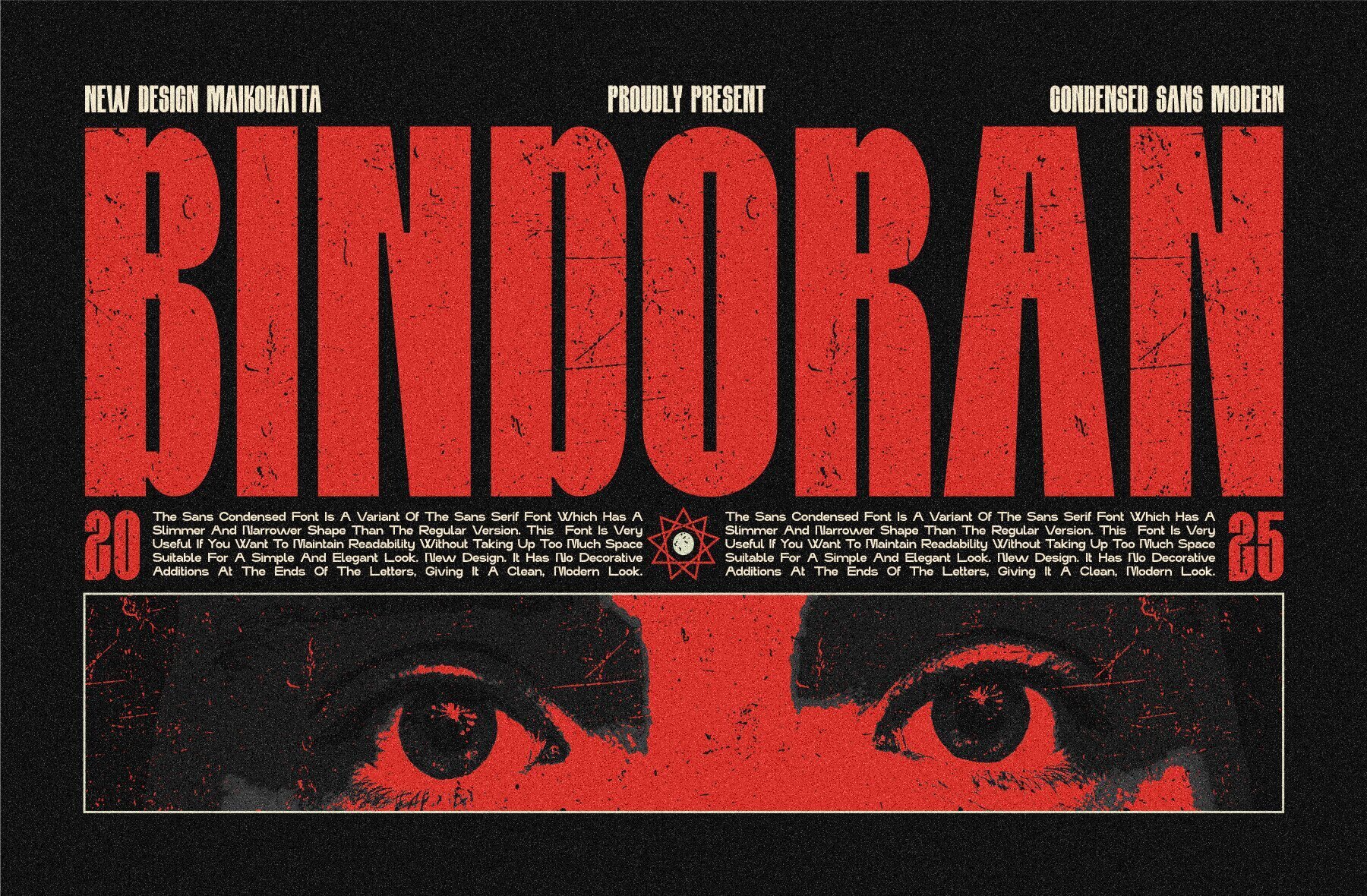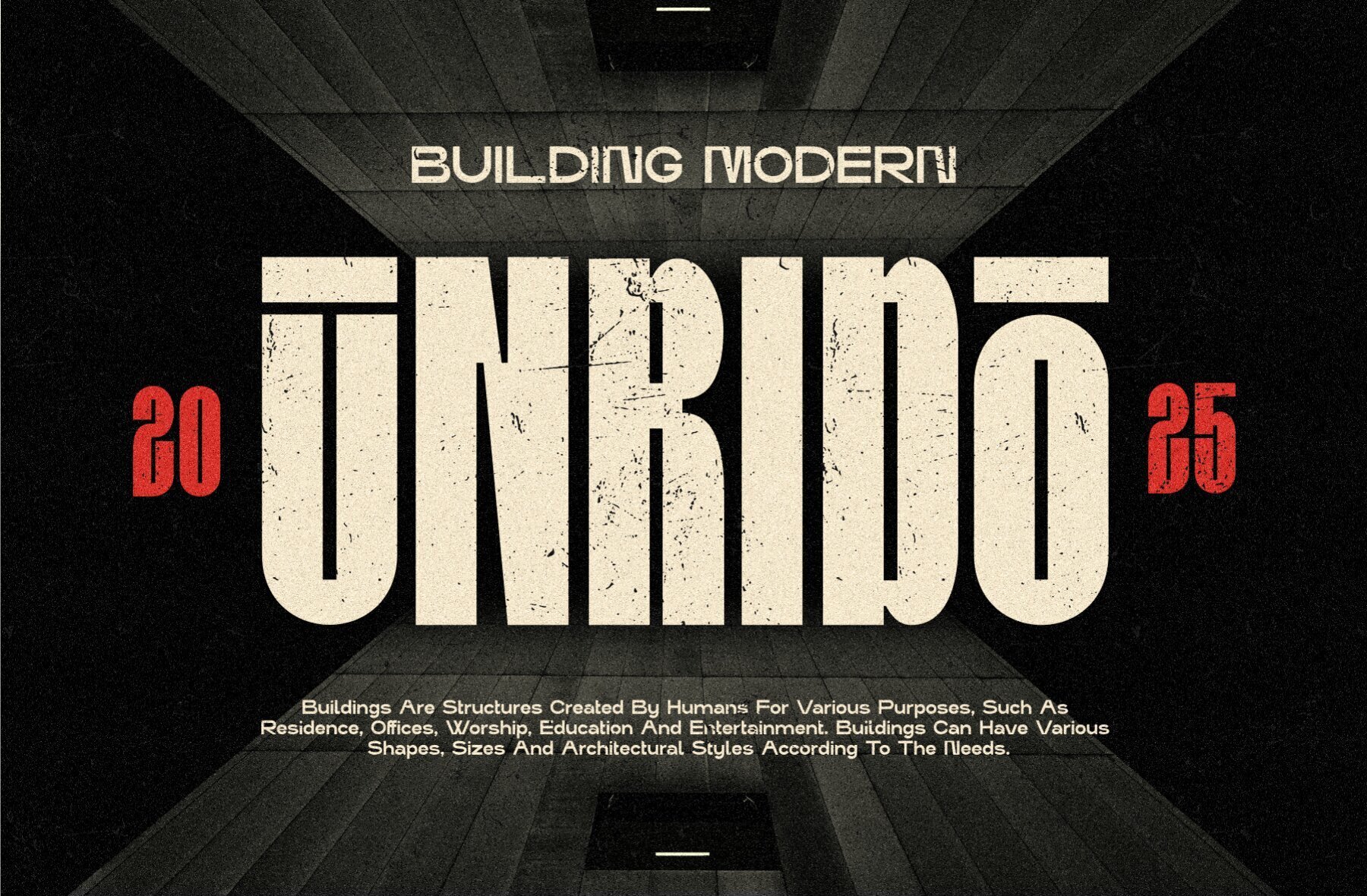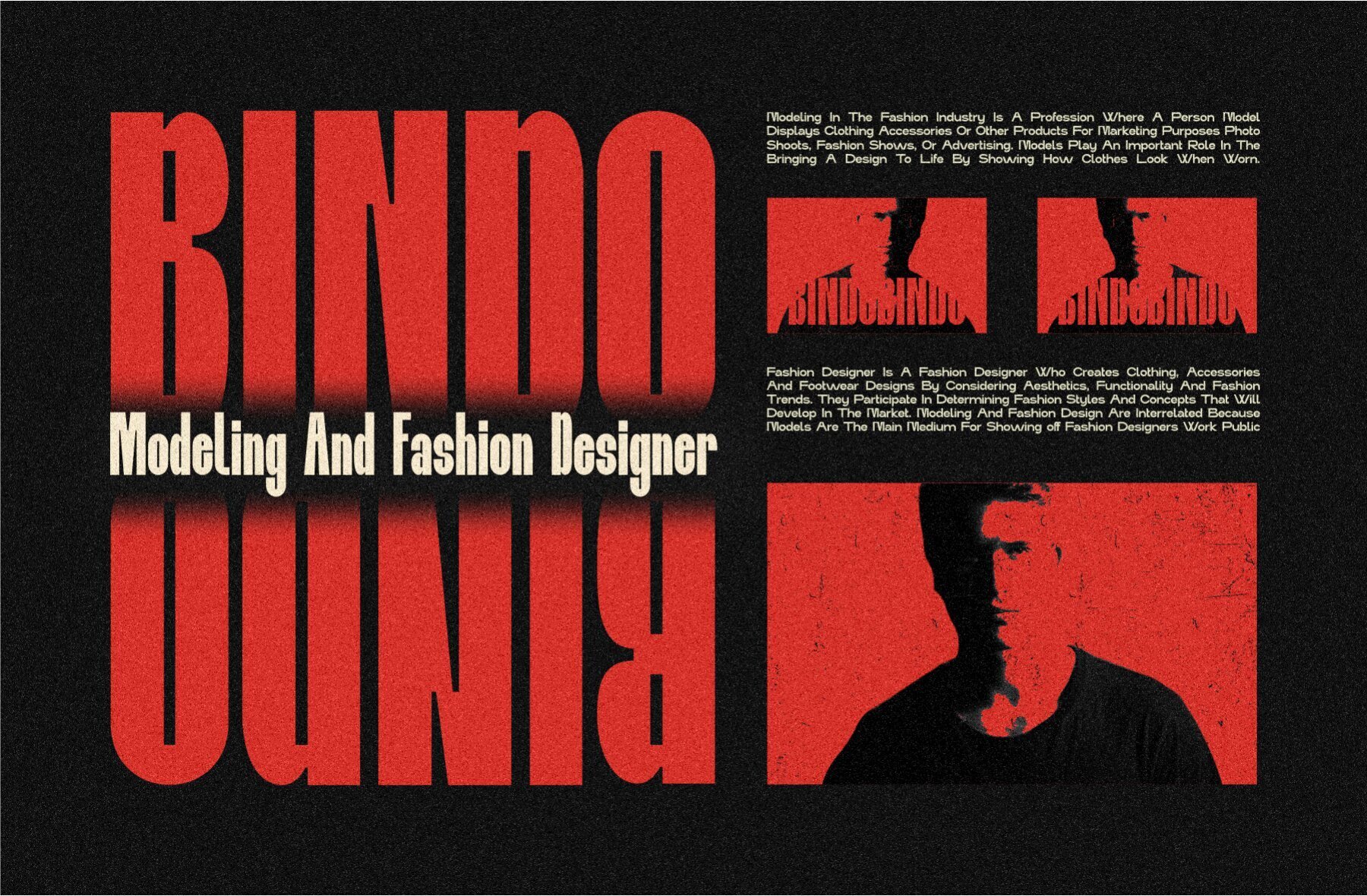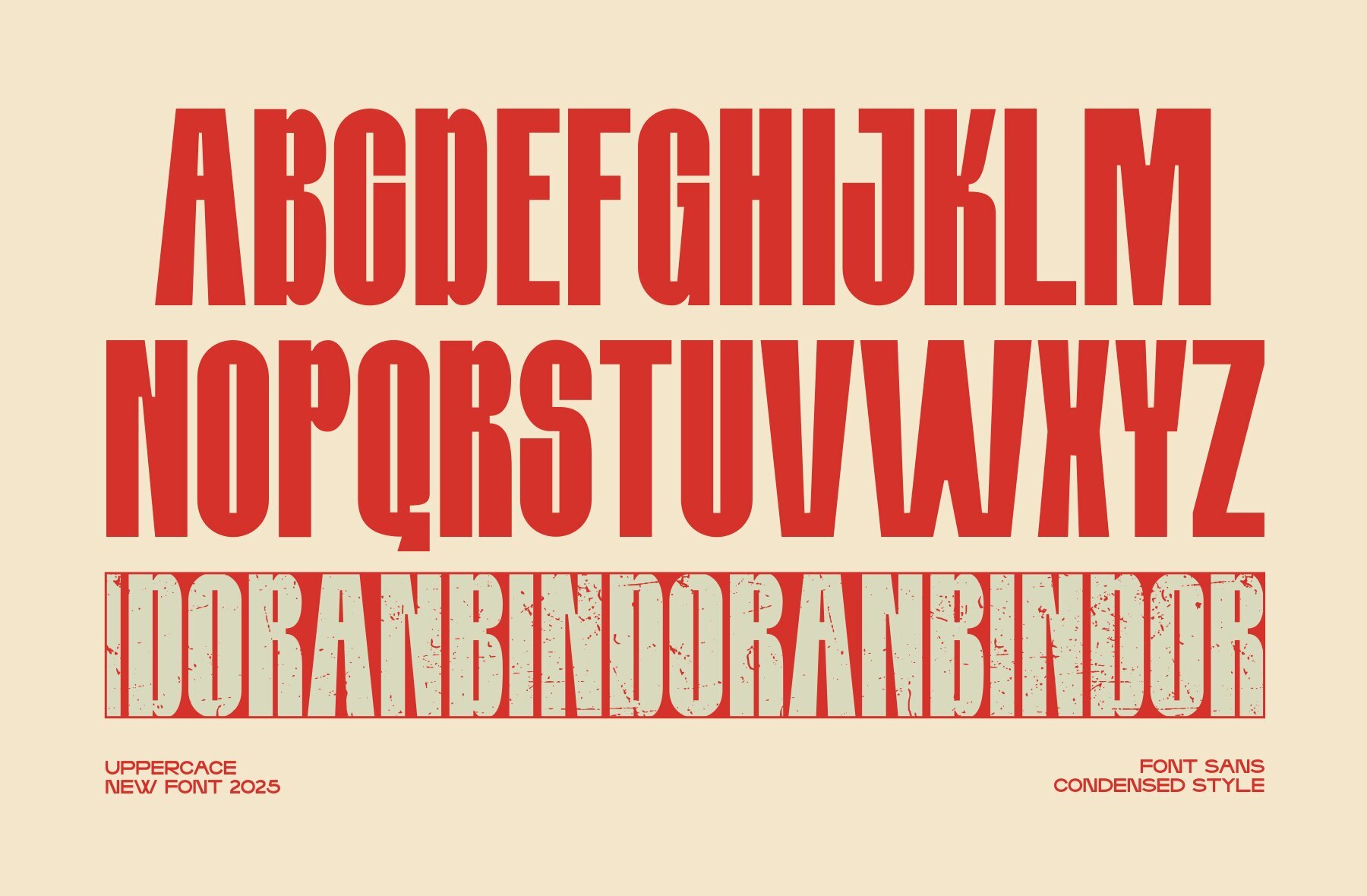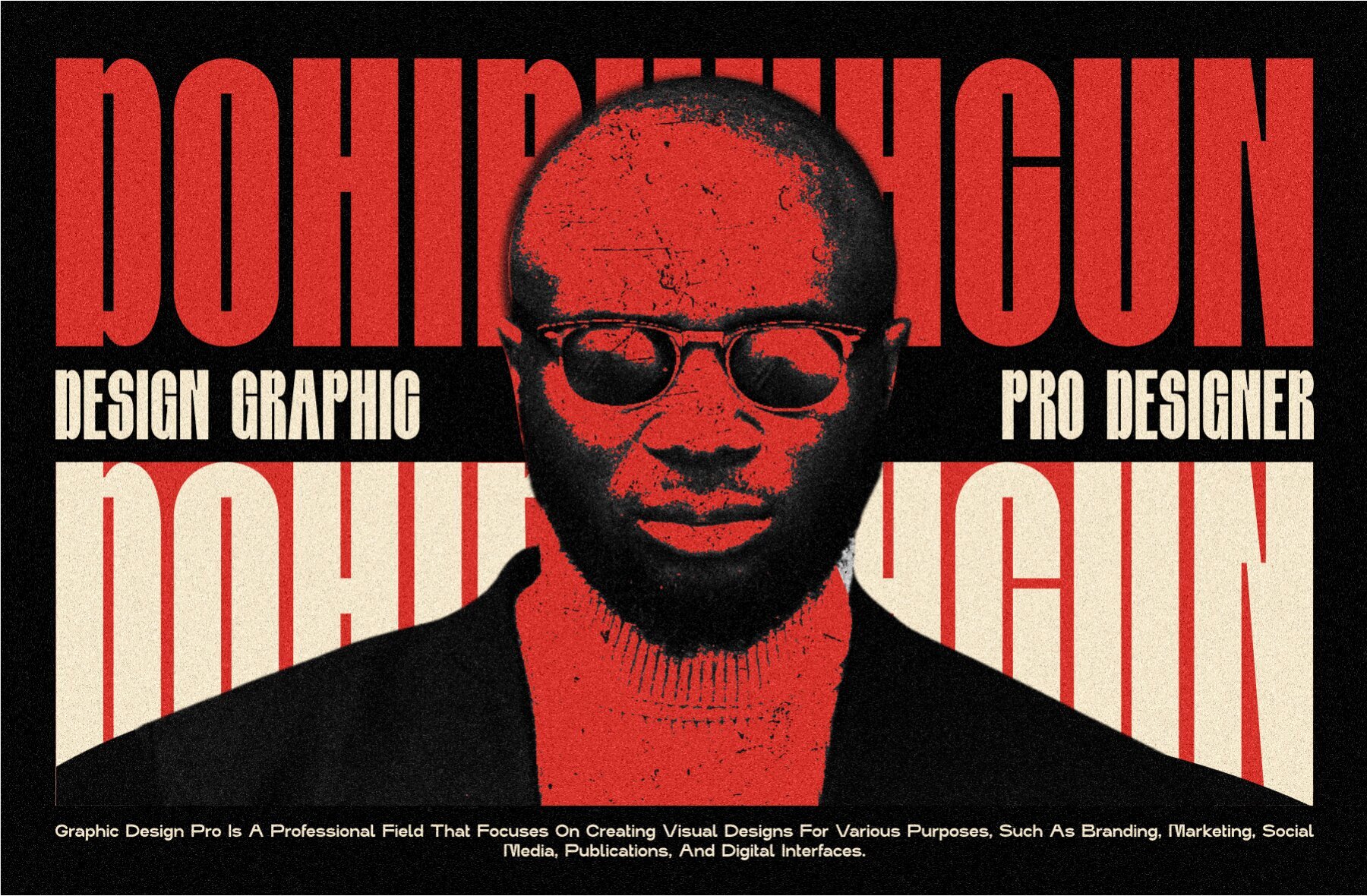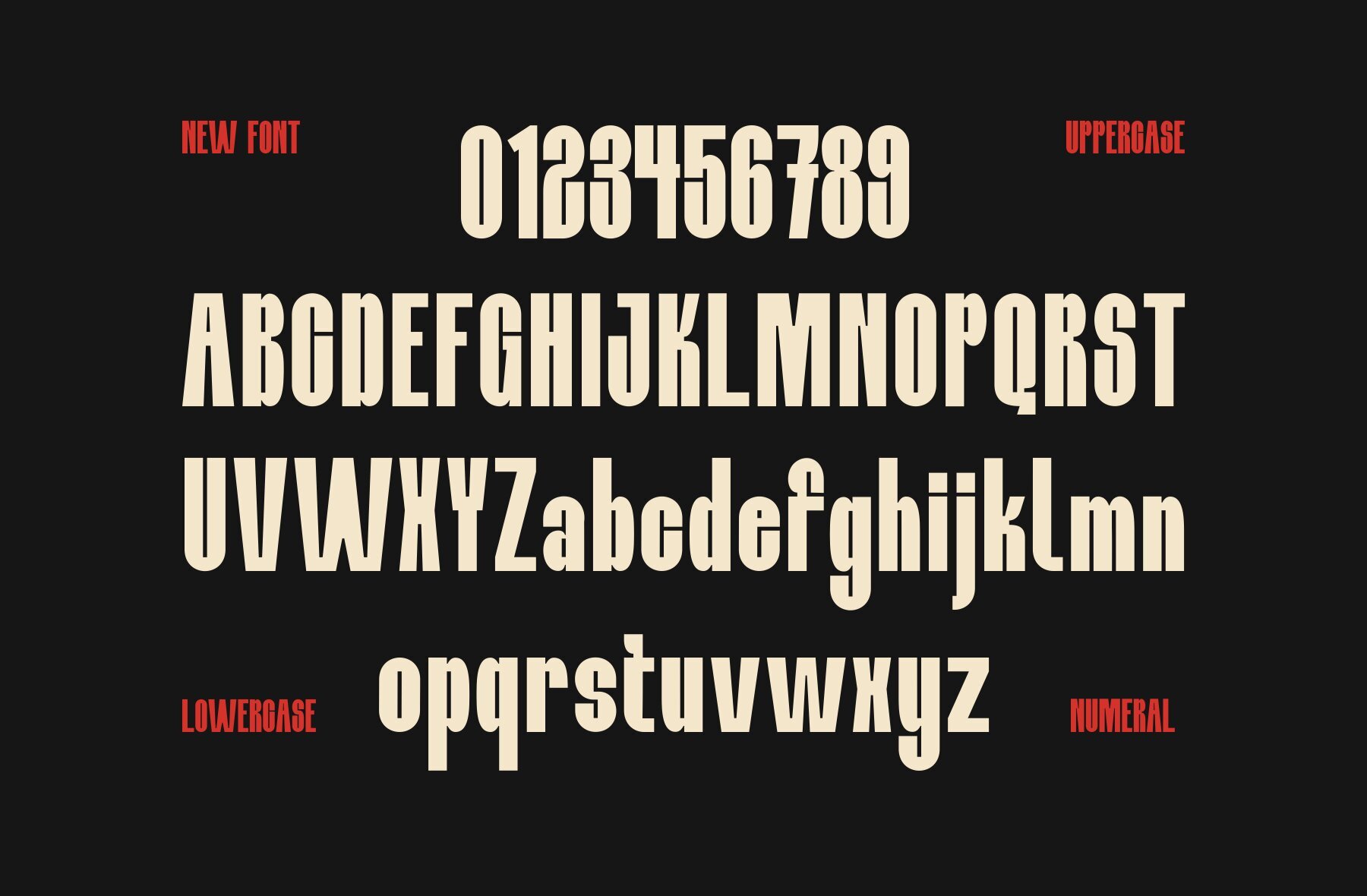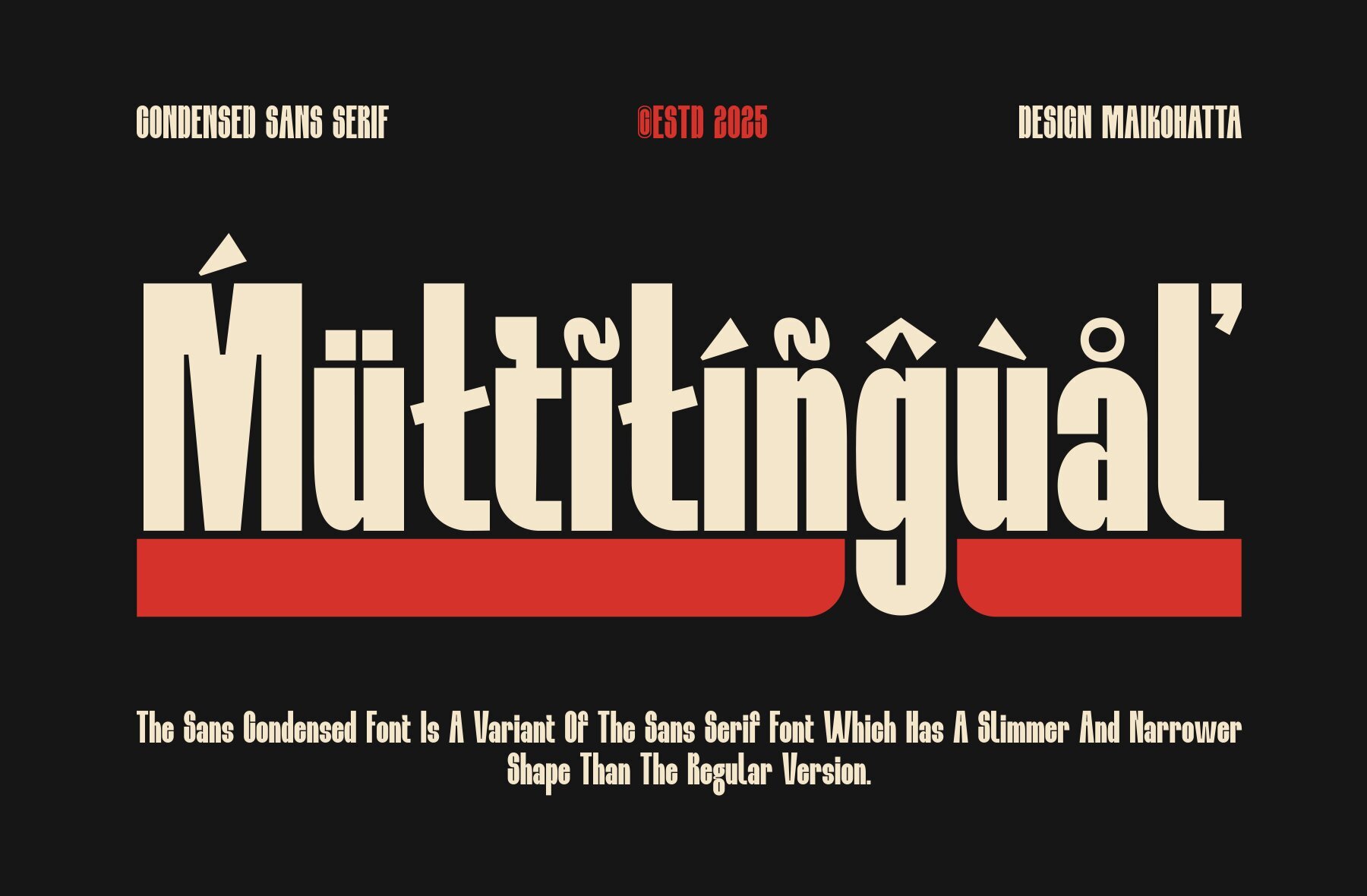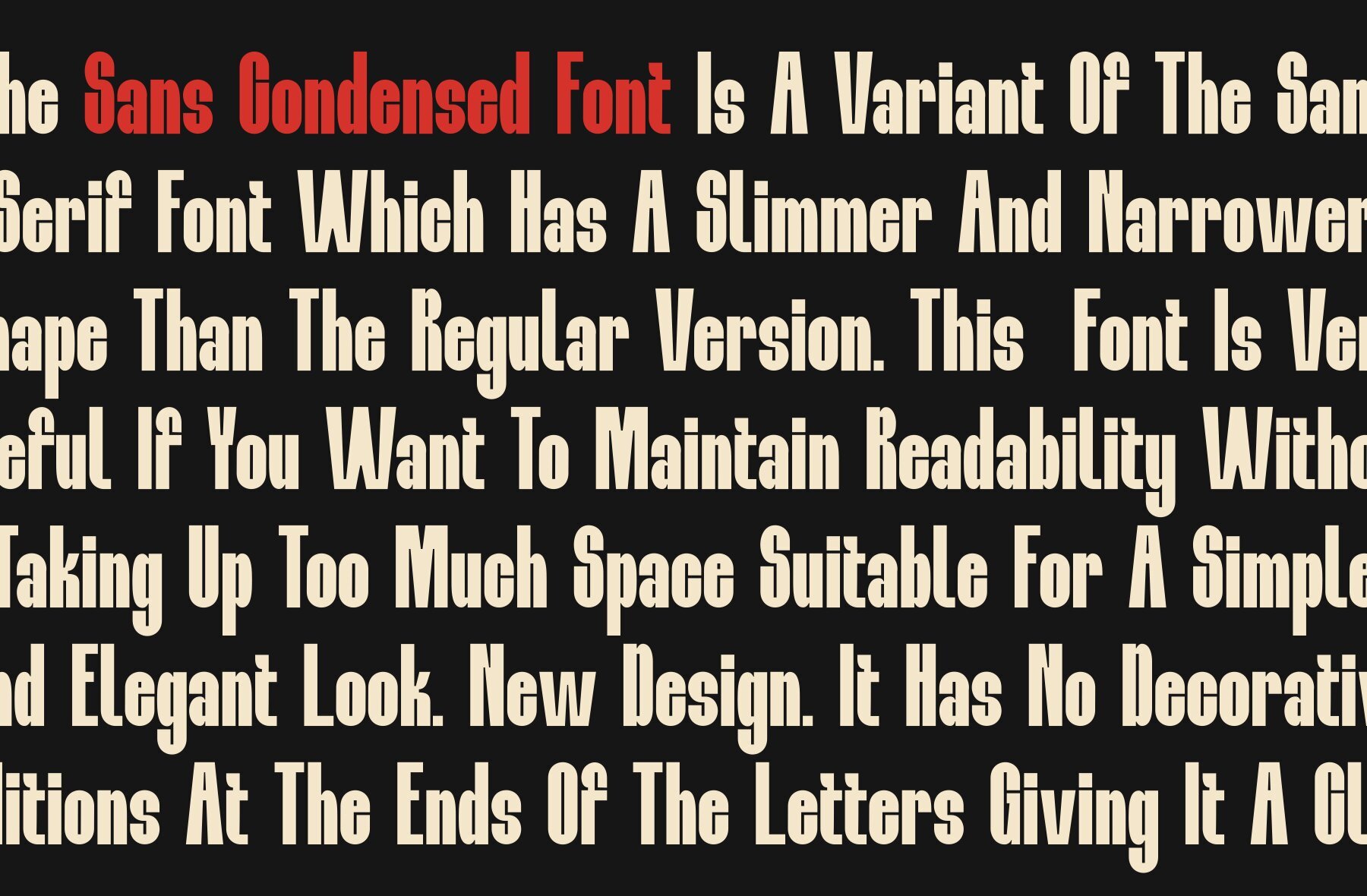
Bindoran Font
BINDORAN
Bindoran is a font known for its narrower and slimmer letterforms compared to regular or wide fonts. It is frequently used in graphic design, print materials, and other media due to its distinct advantages and unique characteristics.Bindoran: A Condensed Sans Modern Typeface